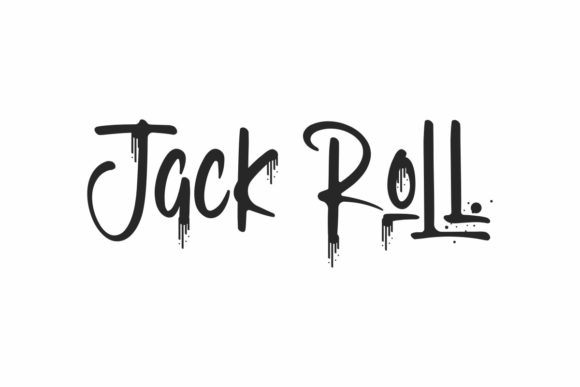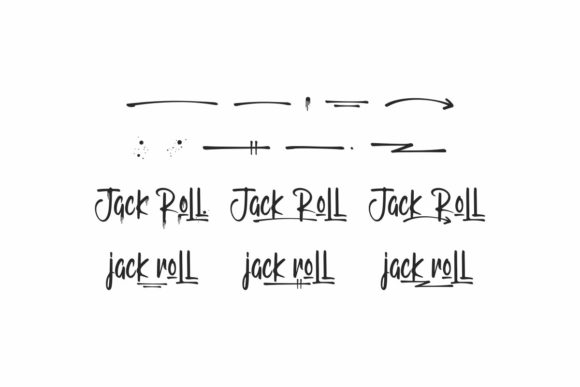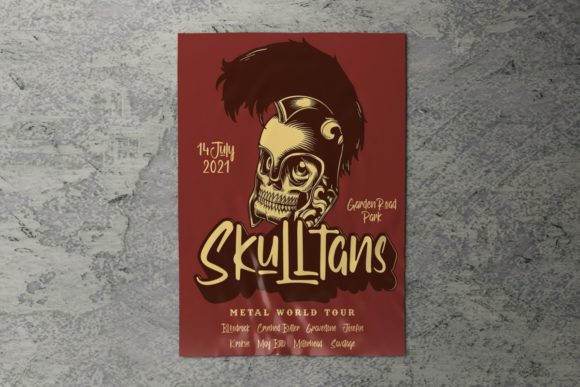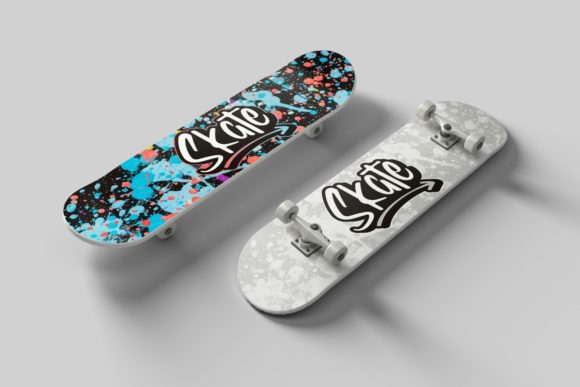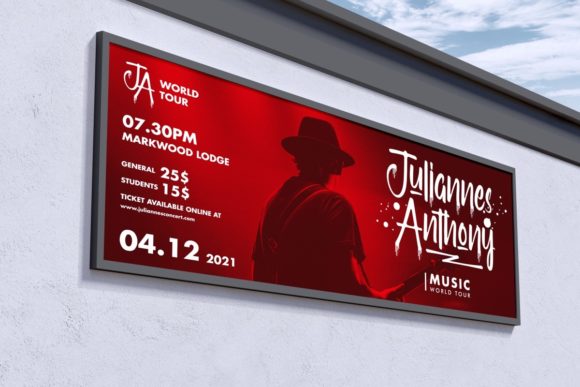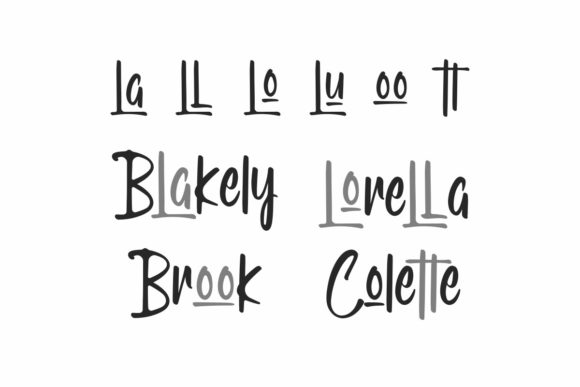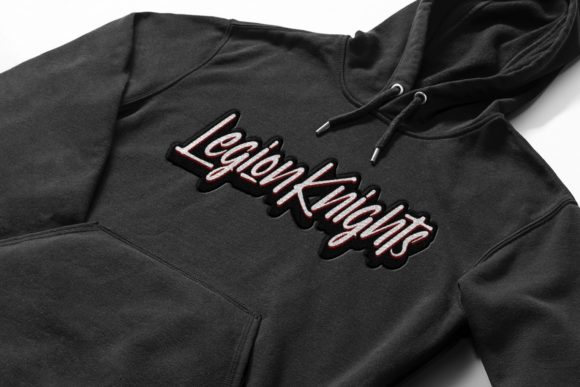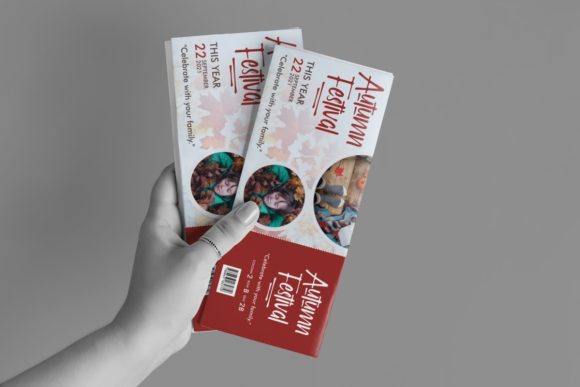
Jack Roll Font
About Jack Roll Font
Jack Roll is a casual and trendy handwritten font, crafted to give your headlines and logotype projects a stylish touch. This font reads as strong, confident, and dynamic and can add tons of nostalgic character to your designs.